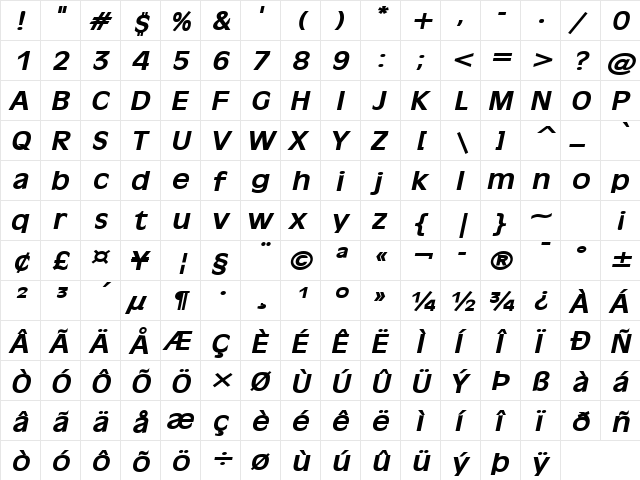
Antiqua 101 Wide BoldItalic
Design Context for Antiqua 101 Wide Typeface
Antiqua 101 Wide is a composed and adaptable typeface that performs quietly and consistently across a wide range of design contexts. The dynamic lean of this cut emphasises speed and emphasis in any layout. Its bold stroke weight gives it real presence on the page.
Pro Tip: Use Antiqua 101 Wide for emphasis, pull quotes, and subheadings where its slanted energy can add rhythm to the layout.